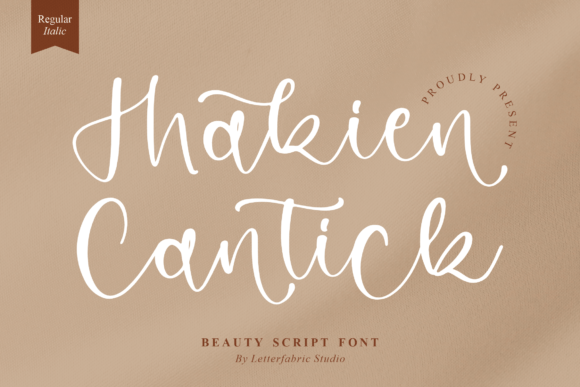
Introducing Makien Cantick Font, an elegant script font that will add a touch of sophistication and charm to your creative projects. With its carefully crafted curves and flourishes, Makien Cantick evokes the beauty and romance of classic calligraphy, while maintaining a modern and versatile aesthetic.
Immerse yourself in the world of Makien Cantick, where letters dance harmoniously, creating a visual symphony that captivates and inspires. This enchanting font will transform your designs, whether you're creating wedding invitations, branding materials, social media posts, or any project that demands an air of elegance and creativity.
With Makien Cantick, you'll discover a font that's as versatile as it is beautiful. Its delicate strokes and flowing lines bring a touch of whimsy and playfulness to your work, while its strong structure and readability ensure that your message is communicated with clarity and impact.
Unlock your creativity with Makien Cantick, the perfect font for expressing your unique style and vision. Whether you're a seasoned designer or just starting your creative journey, this font will elevate your designs to new heights, leaving a lasting impression on your audience.
Makien Cantick is your gateway to a world of endless creative possibilities. Embrace its charm and let it guide you towards creating breathtaking designs that resonate with your audience. Experience the magic of Makien Cantick today and embark on a journey of creativity that knows no bounds.